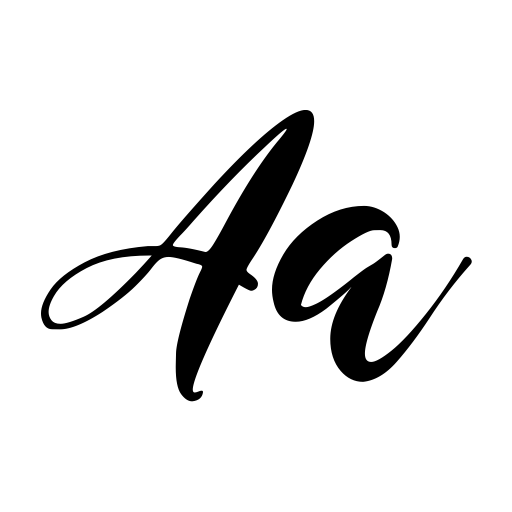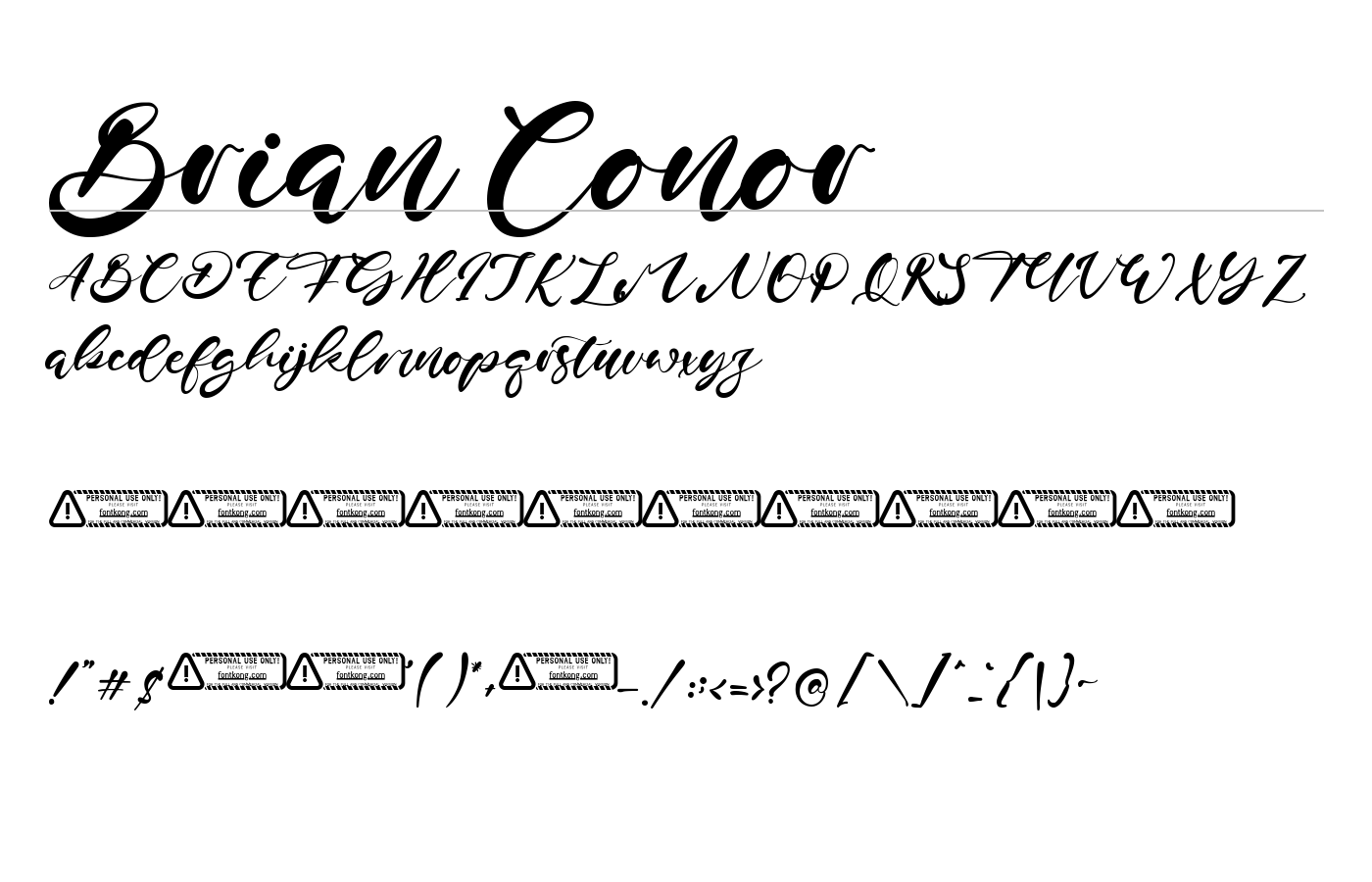
Brian Conor is an elegant script font that features a smooth, flowing style with bold, expressive strokes paired with finer hairlines, giving it a sophisticated yet lively appearance. Its high-contrast calligraphic design with distinctive swashes and curls makes it perfect for luxury branding, invitations, and creative headlines that want to convey a refined, artistic flair. This font works beautifully in contexts where a personal, handcrafted touch is desired, adding a sense of charm and elegance to any project.
Brian Conor Font
About Brian Conor Font